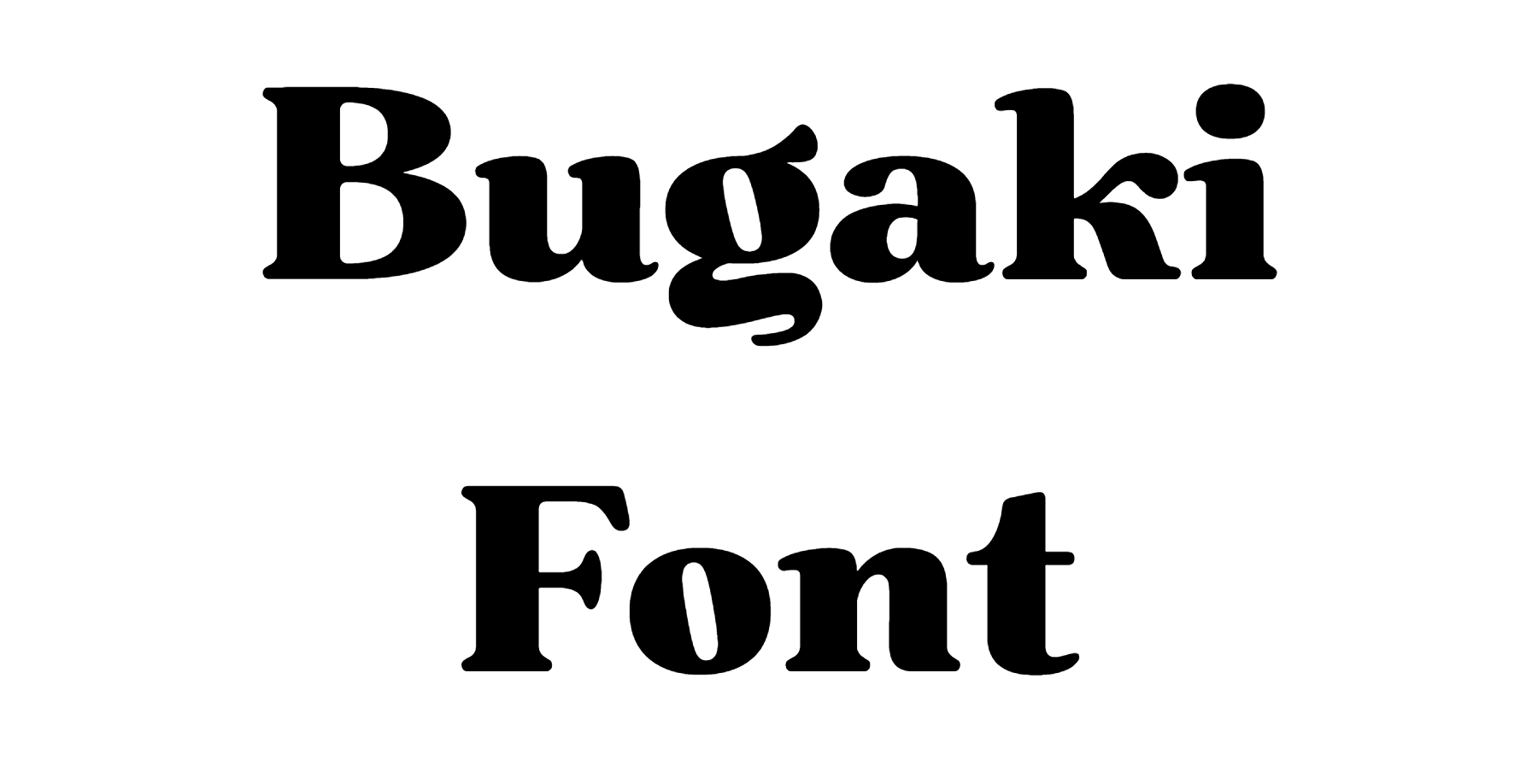
Bugaki Font
Bugaki
Bugaki is a serif font designed by M Arif Dwi Prasetyo & Eko Nurcahyo and published by Kulokale Studio. Small strokes at the ends of its letters (the serifs) give it a classic, trustworthy look. You get two styles in one free ZIP, and the preview above lets you test each one before you download.
- Designer: M Arif Dwi Prasetyo & Eko Nurcahyo
- Publisher: Kulokale Studio
- Font styles: 2 (Regular and Oblique)
- Glyphs: 202 in the Regular style
With complete upper and lowercase letters and all ten digits, Bugaki is ready for real wording, not just a single headline. Common punctuation such as &, !, ? and @ is included as well. It also has the accented letters you need for Spanish, French, German, Portuguese and Italian.
Designers usually reach for fonts like Bugaki when they're making book covers, magazine headlines and classic branding. Serif fonts shine in headlines and printed text. For long paragraphs on phones, check that it still reads well at small sizes. Because the family has more than one style, you can mix them in a single design for headings, subheadings and highlights.
Yes. Bugaki includes the accented letters needed for Spanish, French, German, Portuguese and Italian, so it works for more than just English.